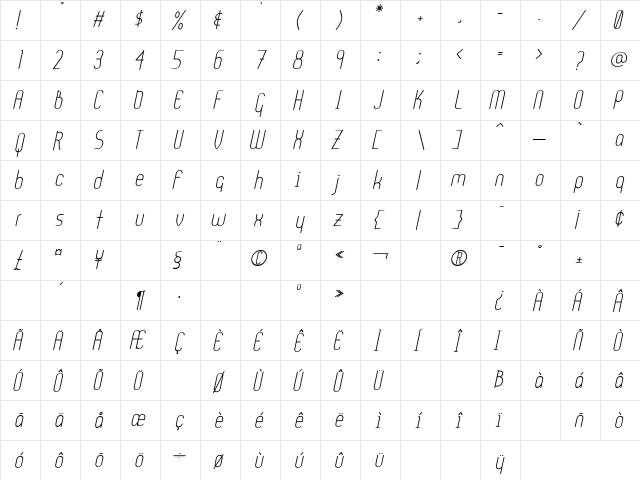
Ultura MediumItalic Font Preview
Ultura MediumItalic
Ultura MediumItalic Font Details
| Style | MediumItalic |
Design Context for Ultura Typeface
Ultura is a composed and adaptable typeface that performs quietly and consistently across a wide range of design contexts. The slanted form adds forward momentum and visual energy.
Pro Tip: Use Ultura for emphasis, pull quotes, and subheadings where its slanted energy can add rhythm to the layout.